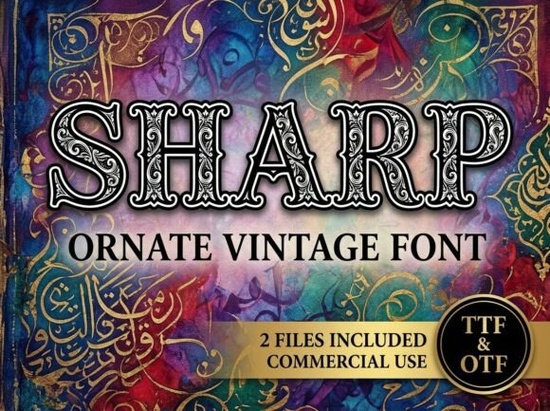
If you're looking for a bold, eye-catching typeface that stands out on its own, Sharp Font is a strong choice for designers and creatives who want clean lines with artistic flair. This all-caps decorative font doesn’t just add style it commands attention, making it ideal for headlines, logos, packaging, and branding where impact matters.
What Makes Sharp Font Stand Out?
Unlike standard fonts that blend in, Sharp Font was built to be seen. Each letterform carries subtle details clean edges, geometric precision, and a confident presence that turn text into visual art. It’s not meant for long paragraphs or body copy. Instead, it shines when used as a focal point, whether in a poster, business card, or social media graphic.
Because it’s designed exclusively in uppercase letters, every character is crafted to work together as a unified design element. That means no awkward lowercase variations to distract from the message. If you’re aiming for a modern, minimalist look with a touch of edge, this font delivers exactly that.
Where Can You Use This Font?
Sharp Font works well across multiple creative projects:
- Headlines & Titles – Perfect for event posters, magazine covers, and website banners.
- Logos & Branding – Ideal for startups, fashion labels, or lifestyle brands wanting a sleek, memorable identity.
- Packaging Design – Great for product boxes, labels, and gift wrap where you want the name to pop.
- Print-on-Demand Items – Works beautifully on mugs, T-shirts, tote bags, and phone cases.
It’s especially useful if you’re creating digital or physical products where the text itself becomes part of the design. Think of it like a signature stamp one that says “this is special” without needing extra graphics.
Important Note: All-Caps Only
This font is strictly uppercase. There are no lowercase letters included. While that might seem limiting at first, it actually helps maintain consistency and focus. Since every letter is designed to be impactful, using only caps keeps the design balanced and intentional.
That said, keep this in mind when planning your project. If you need mixed-case text, you’ll want to pair Sharp Font with another font for body content. But for titles, names, and standout phrases? It’s perfect.
Why Creators Love It
Many designers appreciate how this font fits into a broader collection of decorative typefaces. If you’ve already explored similar styles like Ro Monogram, Kawaii Heartsy, or Beauty Lilly, you’ll find Sharp Font offers a different kind of energy more structured, more architectural, yet still expressive.
For wedding planners or luxury brand creators, it pairs well with elegant designs. You can even explore pairing it with Luxury Wedding Monogram for a layered, high-end feel.
Final Tips Before Using
- Always test the font at full size before finalizing designs its strength shows best when large.
- Use it sparingly. One bold headline with Sharp Font often speaks louder than multiple lines.
- Pair with simple backgrounds or neutral colors so the font remains the hero.
- Remember: it’s not for body text. Keep it for titles, logos, and decorative elements.